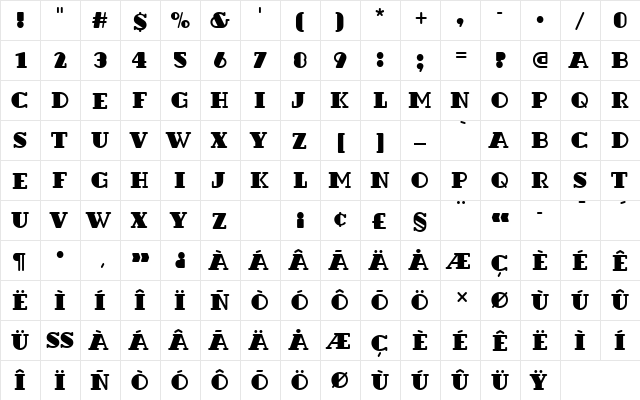
DextorBlaDRo1 Regular Font Preview
DextorBlaDRo1 Regular
Design Context for DextorBlaDRo1 Typeface
DextorBlaDRo1 offers clean, dependable letterforms without strong stylistic allegiance, making it a practical choice for designers who need flexibility.